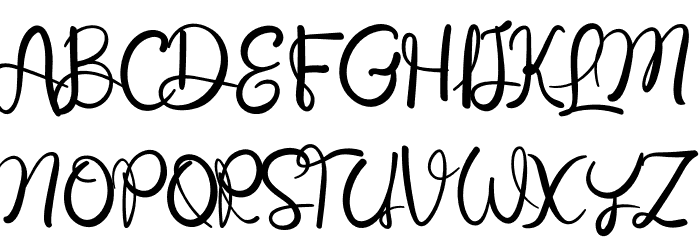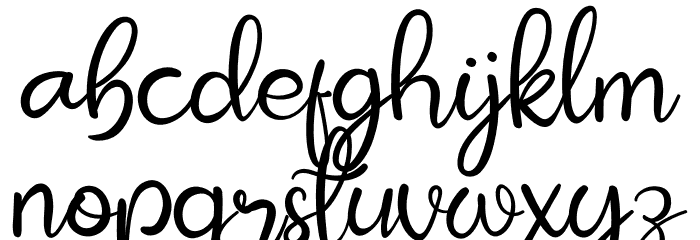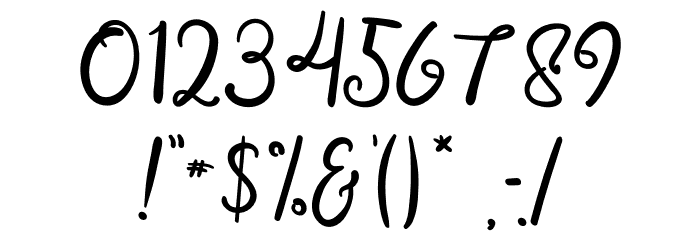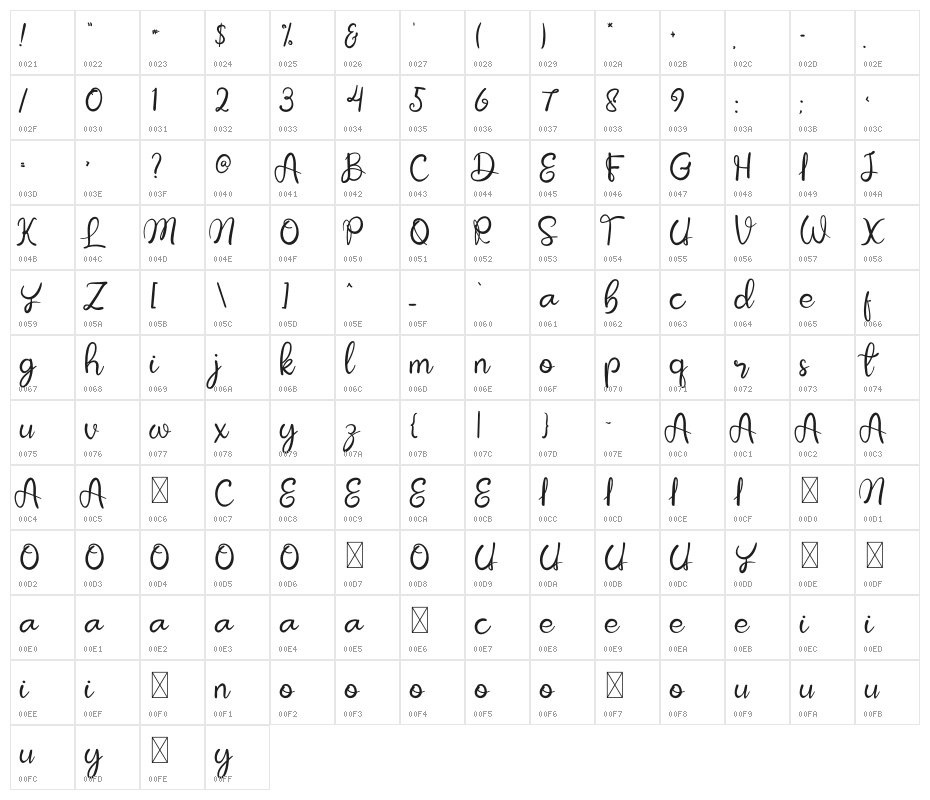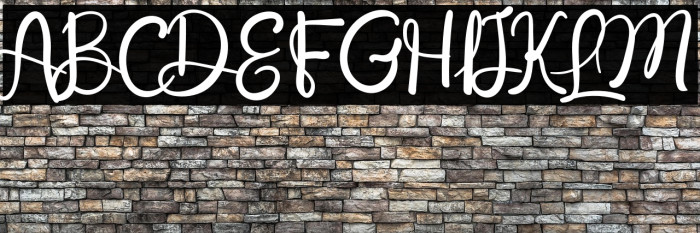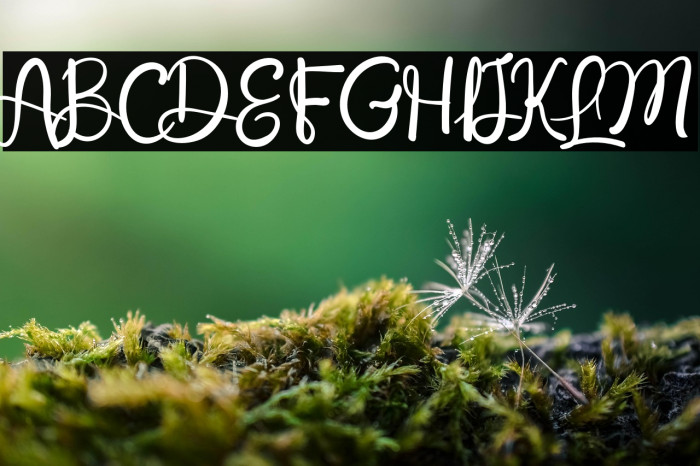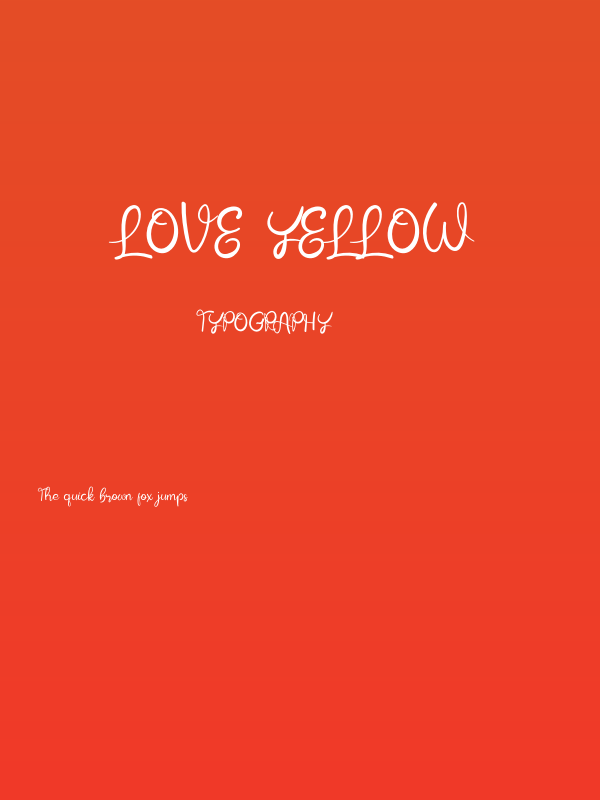
Love Yellow Font
This font features a playful and whimsical script style, characterized by its flowing, interconnected letters. The uppercase letters are bold and dynamic, with a sense of movement that adds a lively touch. The lowercase letters maintain a consistent flow, with rounded forms and smooth curves that enhance readability. Numbers and special characters are designed to match the overall aesthetic, providing a cohesive look. The font's hand-drawn appearance gives it a personal and friendly feel, making it suitable for creative and informal projects.
A playful, whimsical script font with flowing, interconnected letters.
- Font: Love Yellow
- Proposed Projects: Ideal for greeting cards, invitations, personal branding, and creative projects.
- Category: Handwritten
- Use Case: Logos, Headlines, Invitations